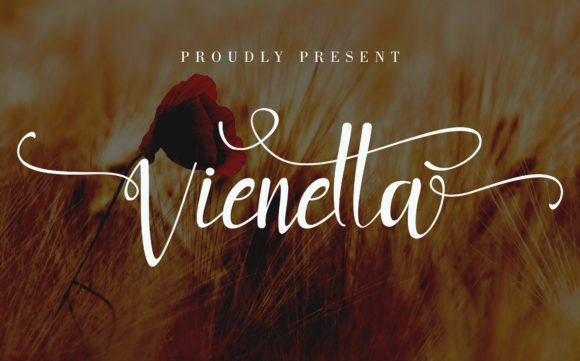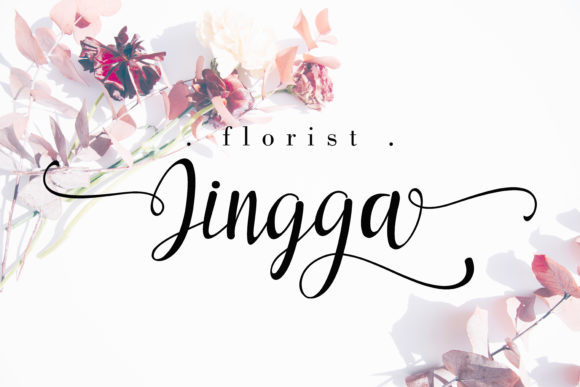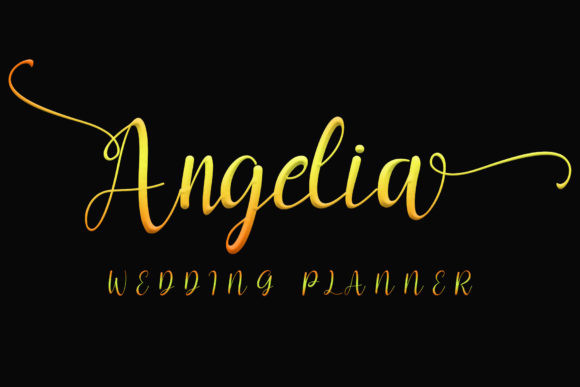
Vienetta Font
Vienetta is a beautiful and elegant font. This font can be used for wedding events both for invitation card, wedding planners, writing in flower shops, or for any other romantic greetings. This font is PUA encoded which means you can access all of the cute glyphs and swashes with ease! It also features a wealth of special features including alternate glyphs and ligatures.